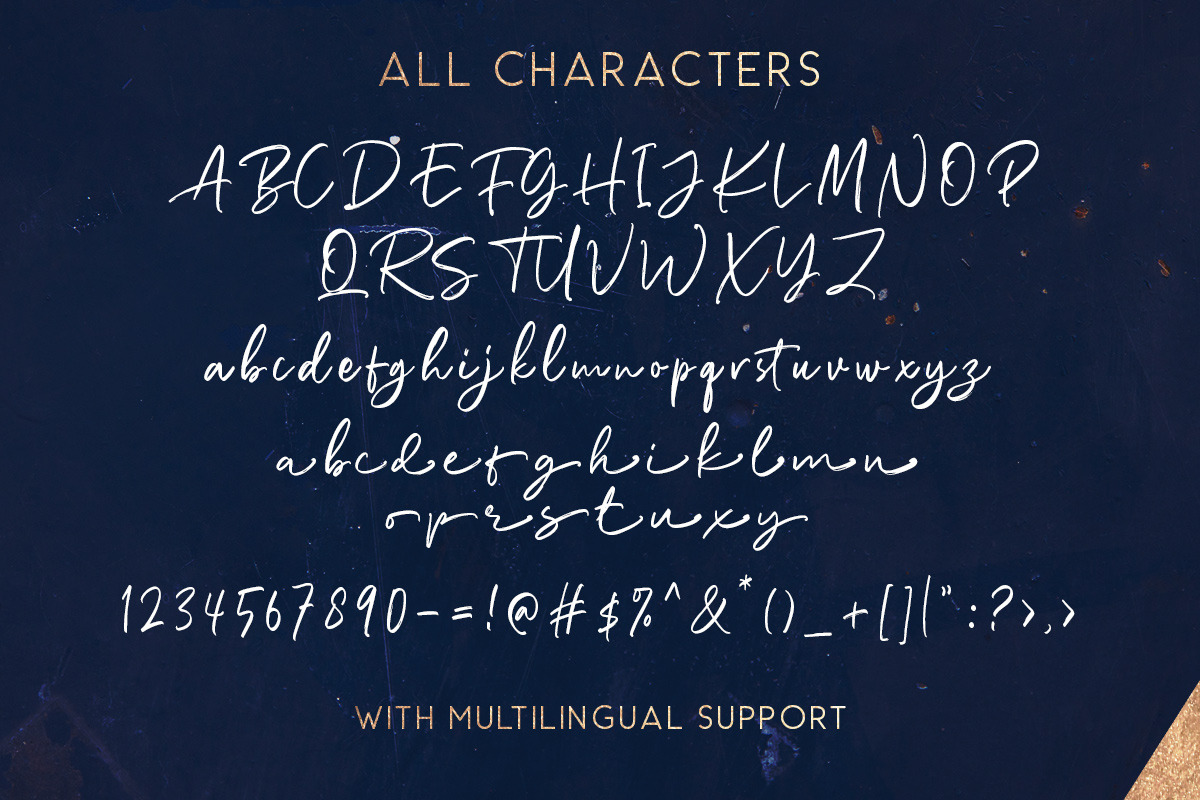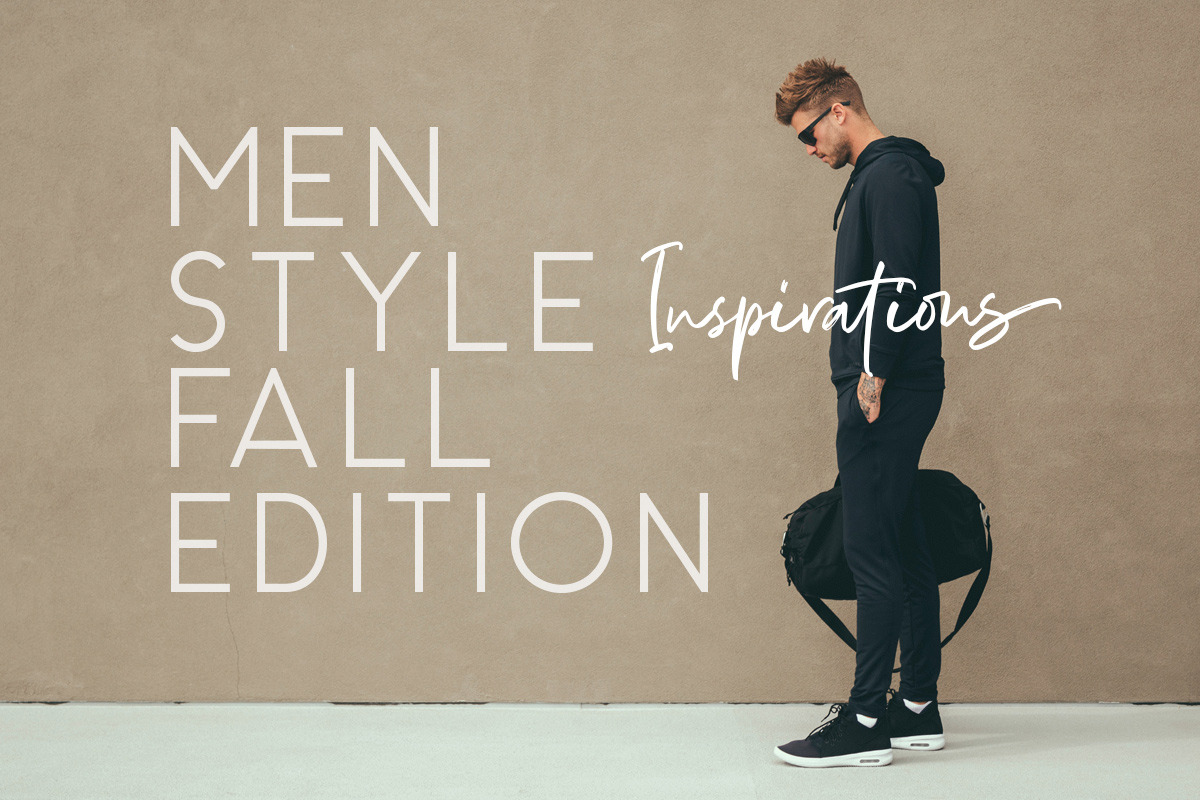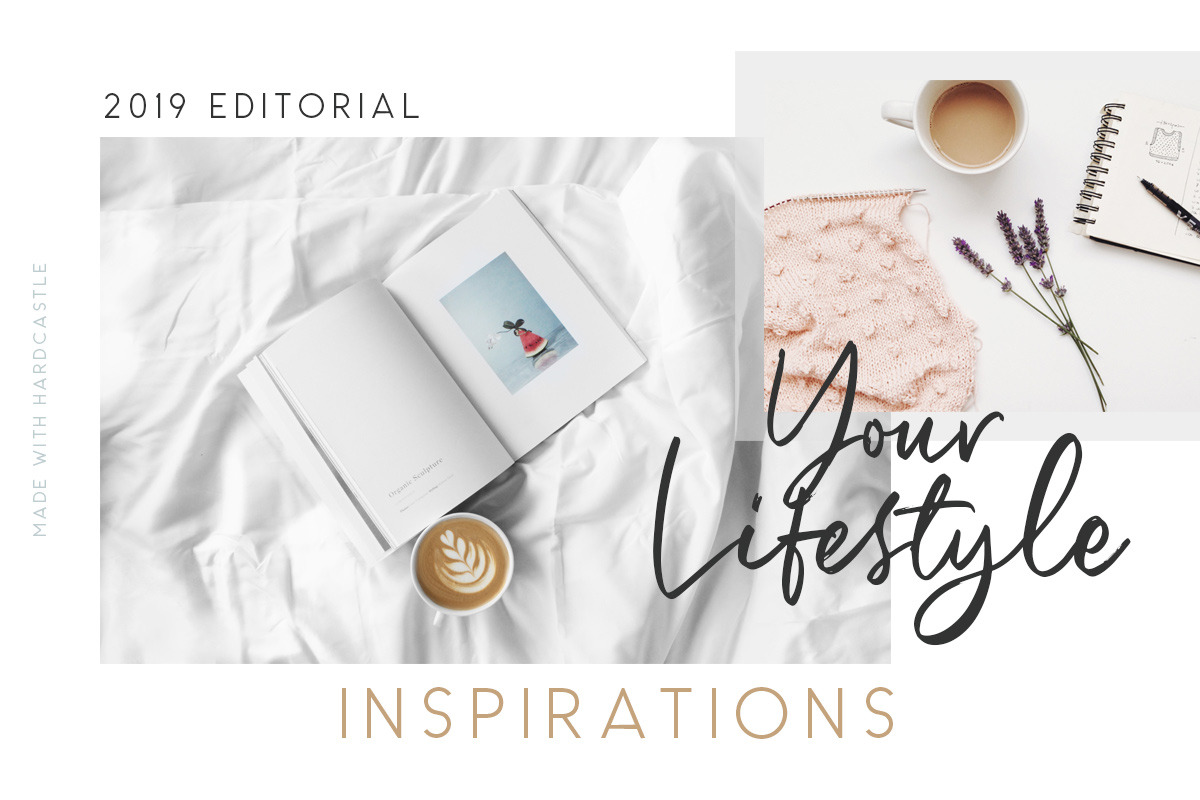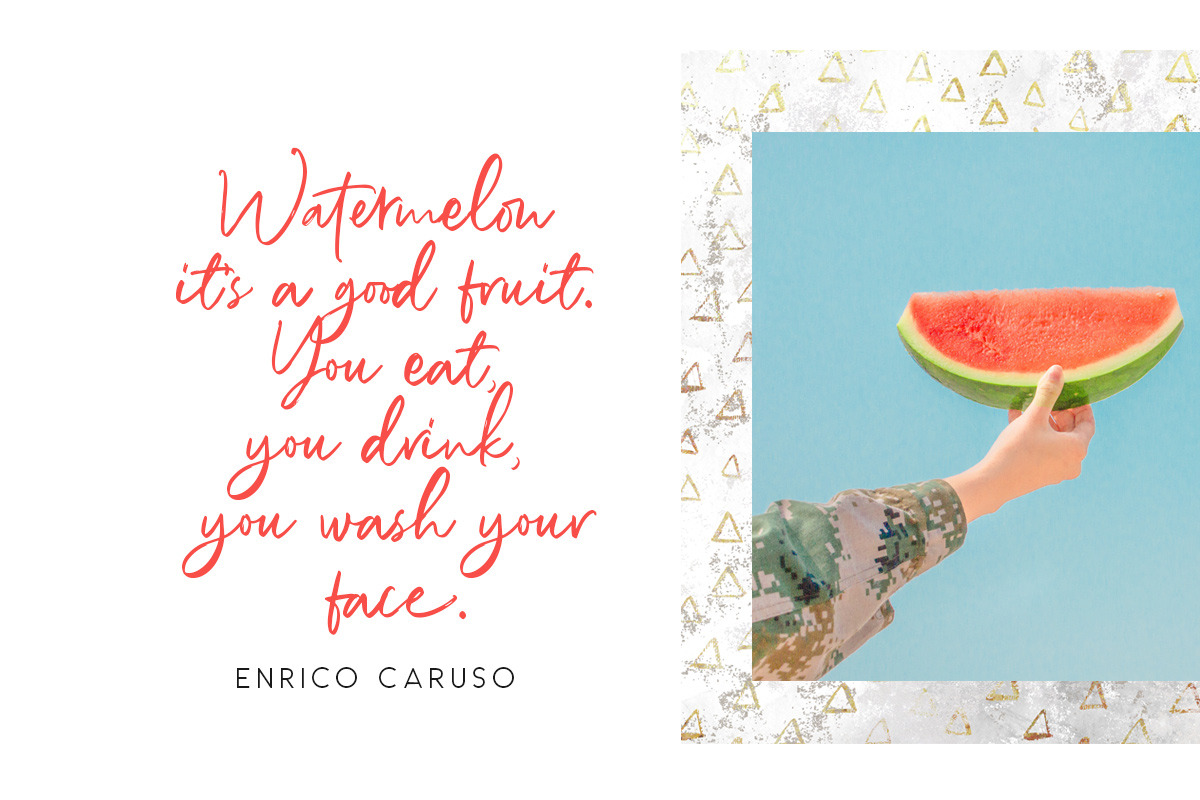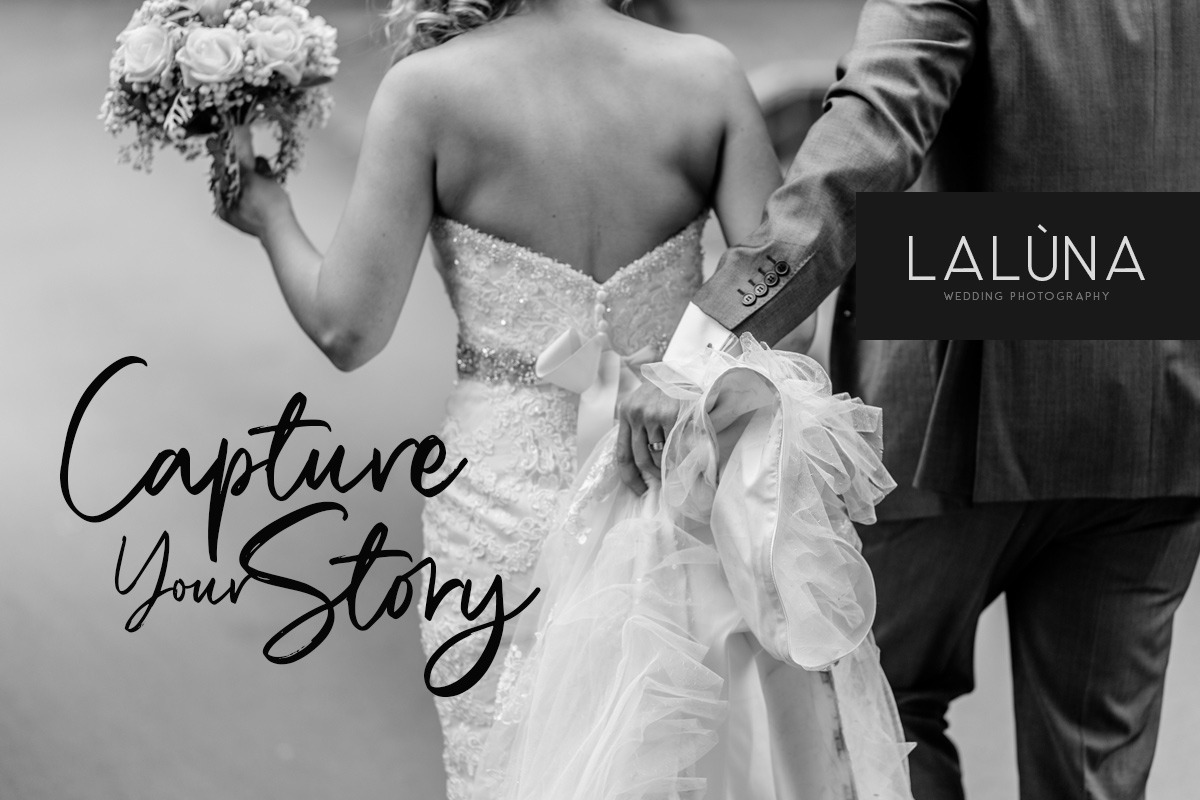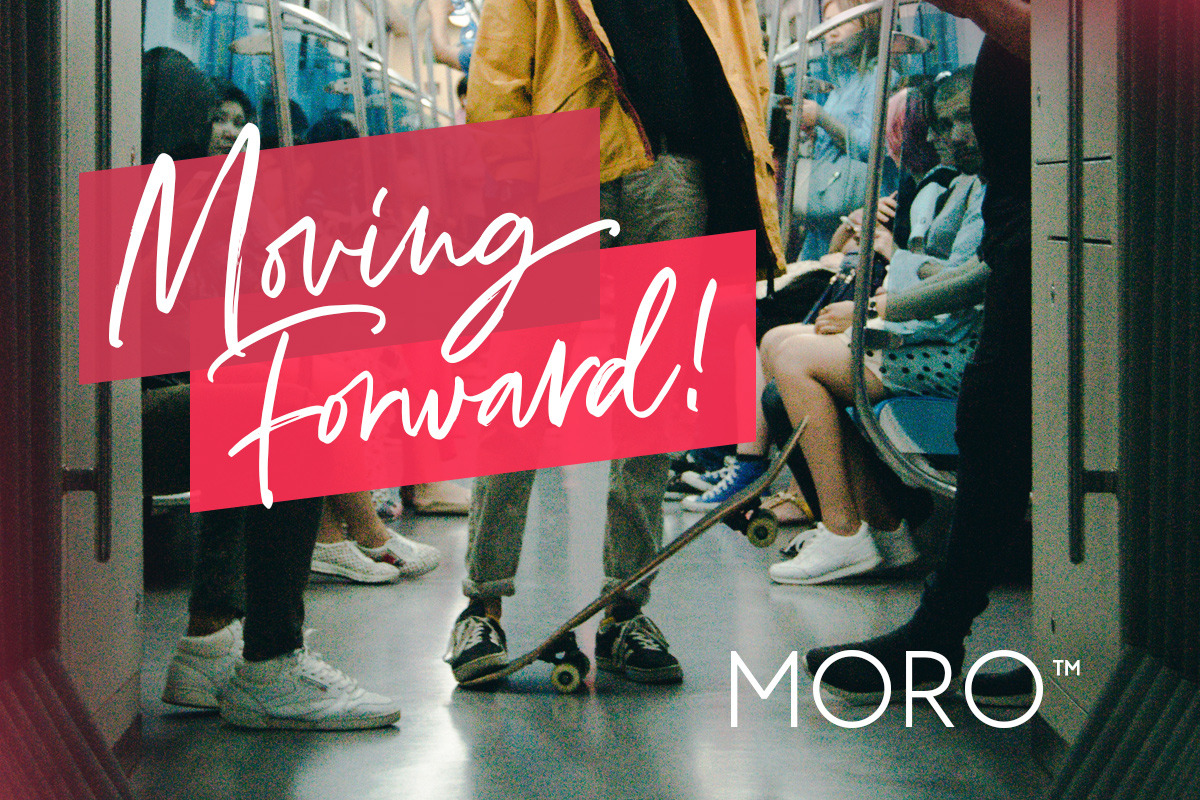
Richardson - Signature Brush
Introducing, Richardson - Signature Brush, signature script with a lot ligatures!
Richardson - Signature Brush is signature script with textured brush that contain stylistic alternate, underline, and a bunch of ligatures to create your own customized signature or logo design. Richardson - Signature Brush is a signature font that you can use to make a logo for branding, beautiful fashion design, suitable for wedding invitation, or handwritten quote. Also already PUA Encoded!
Foreign Languages Support: ÀÁÂÃÄÅÇÈÉÊËÌÍÎÏÐÑÒÓÔÕÖØÙÚÛÜÝßàáâãäåæçèéêëìíîïðñòóôõöøùúûüýÿ